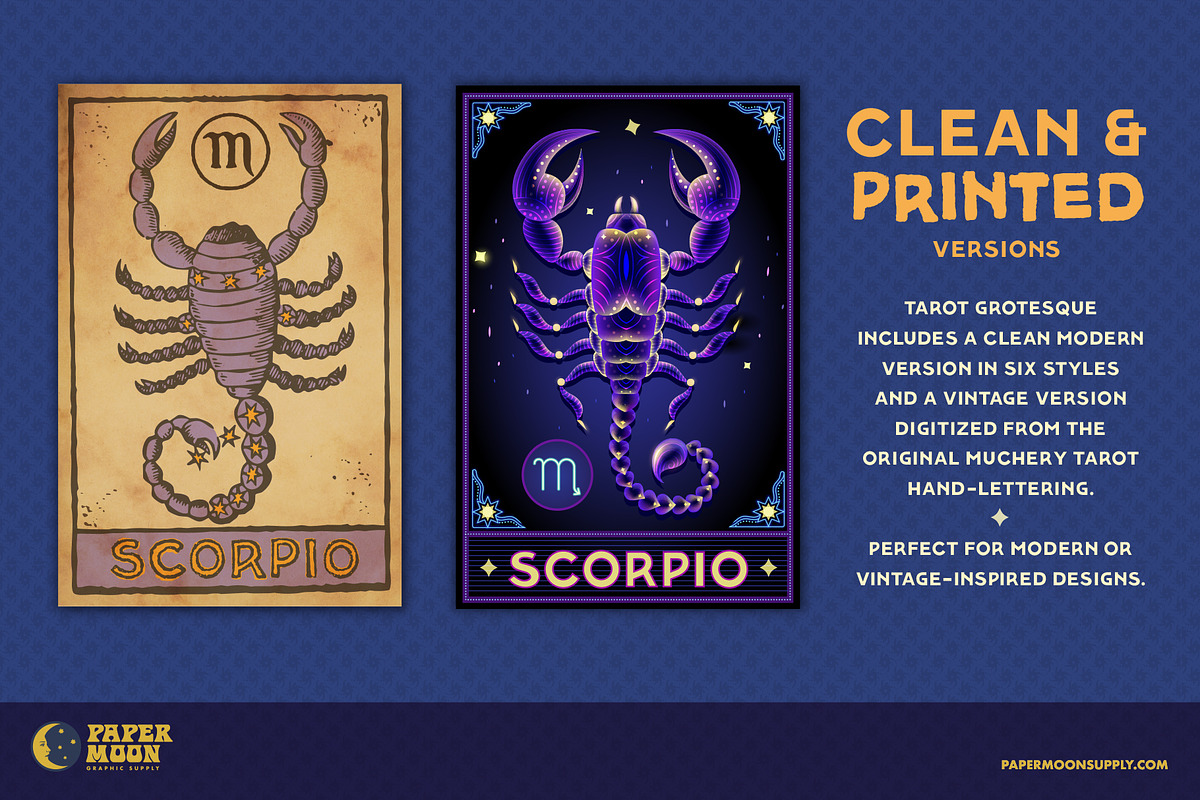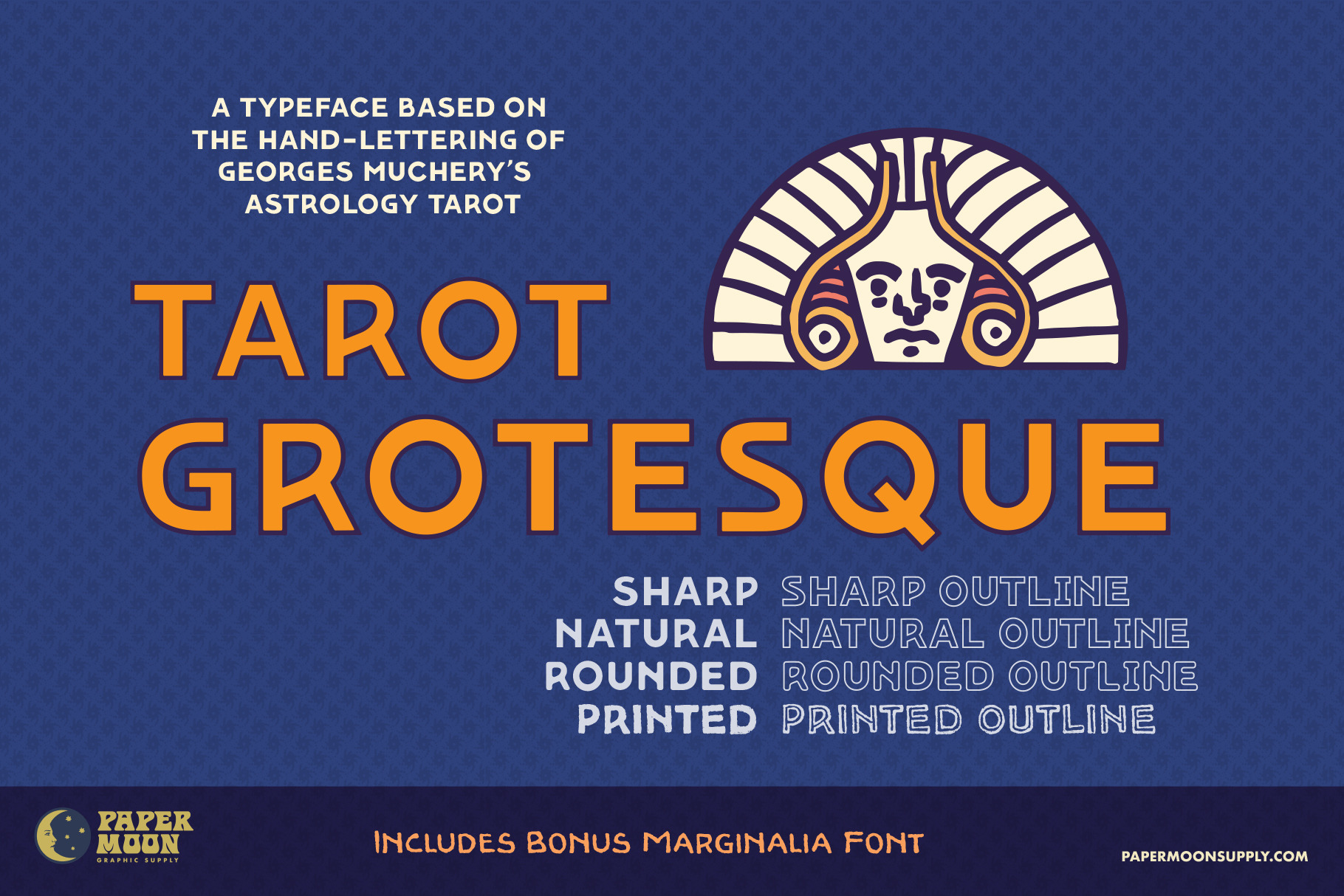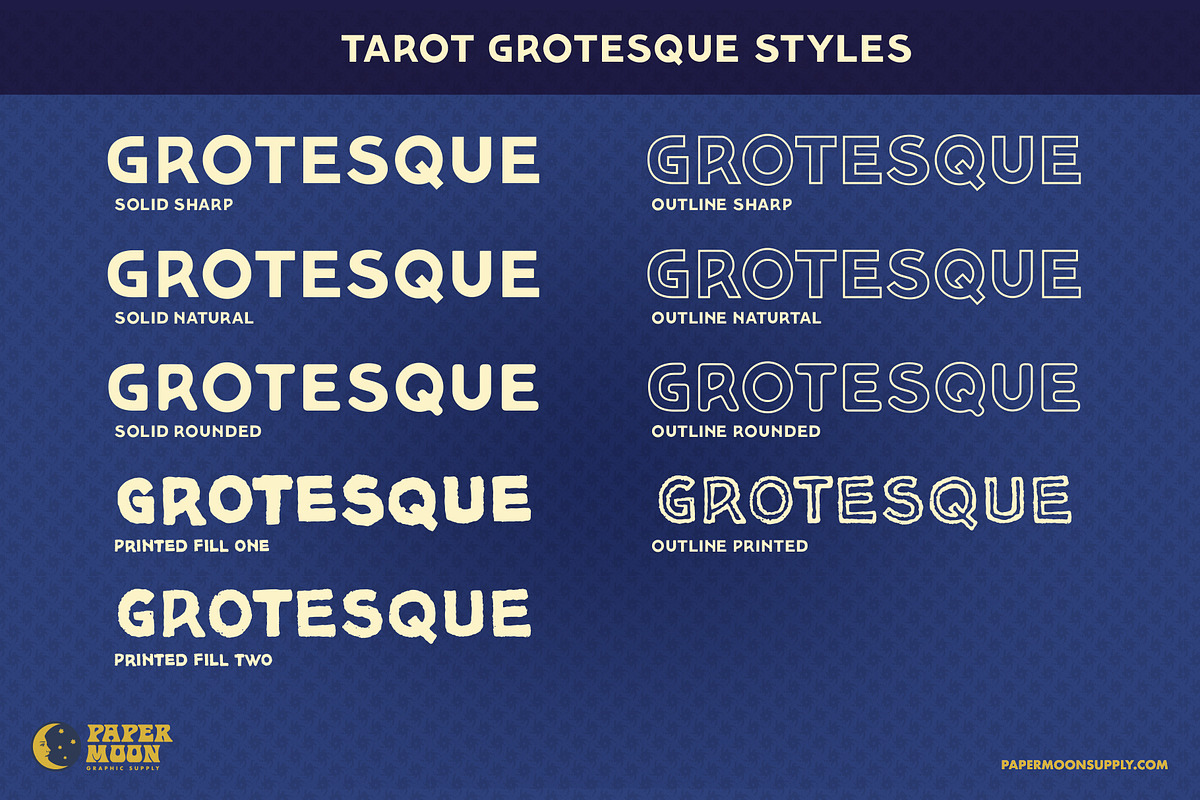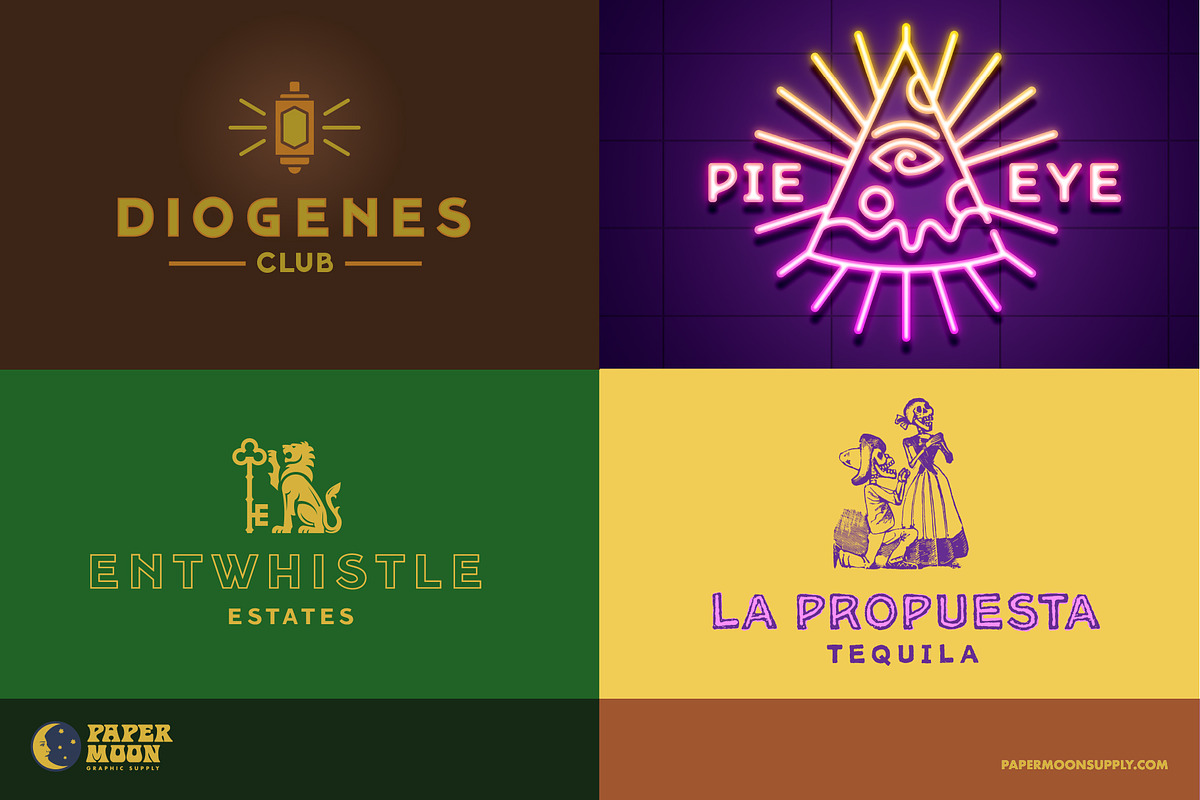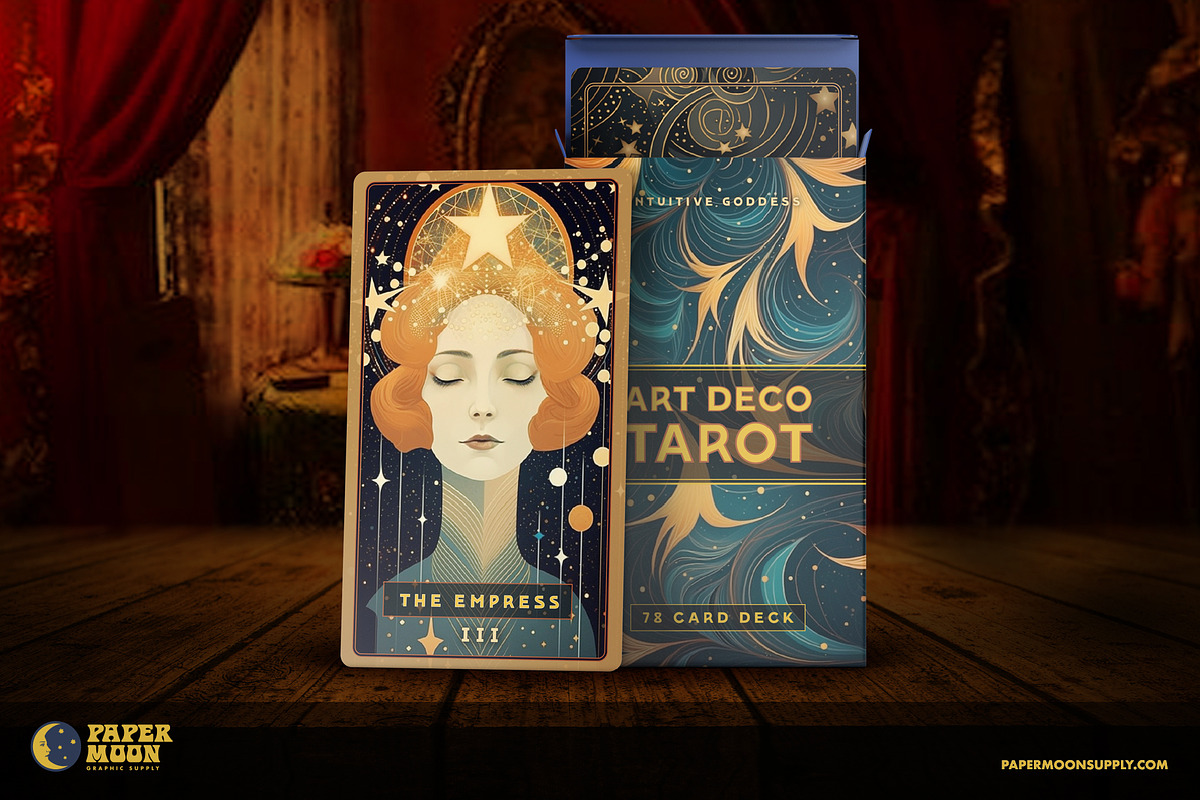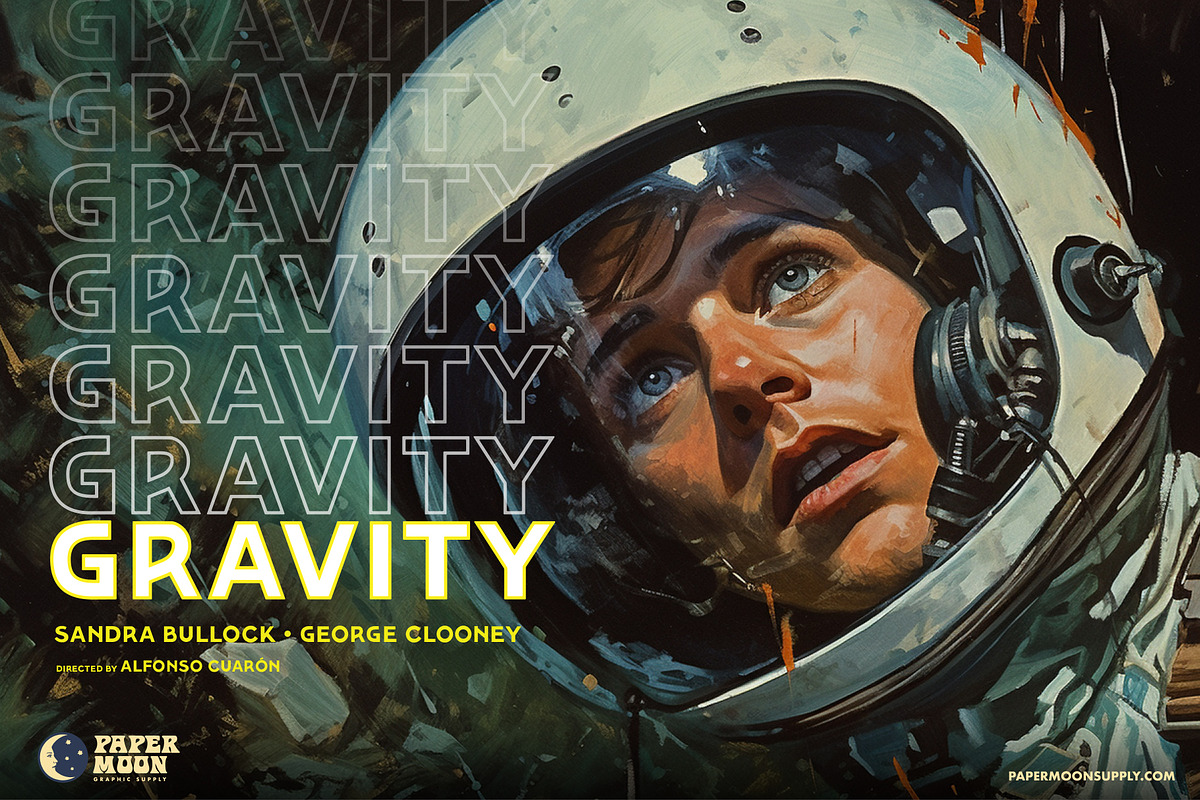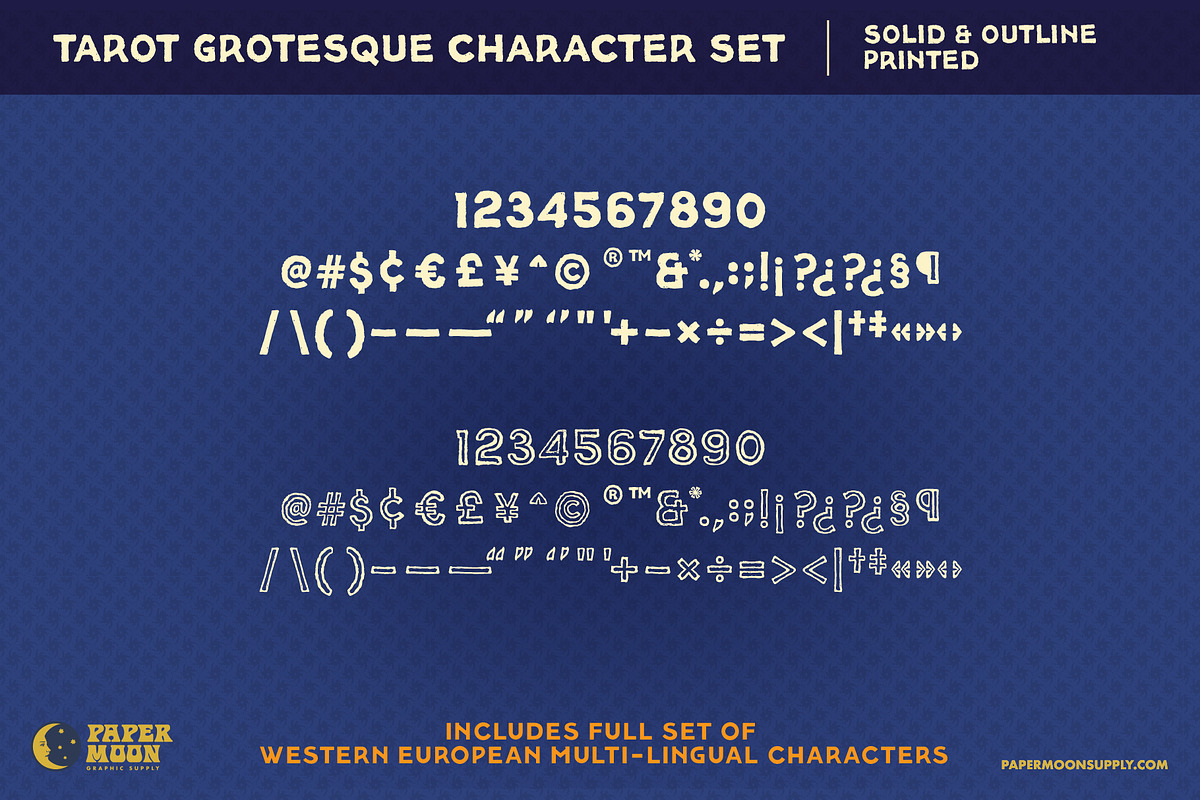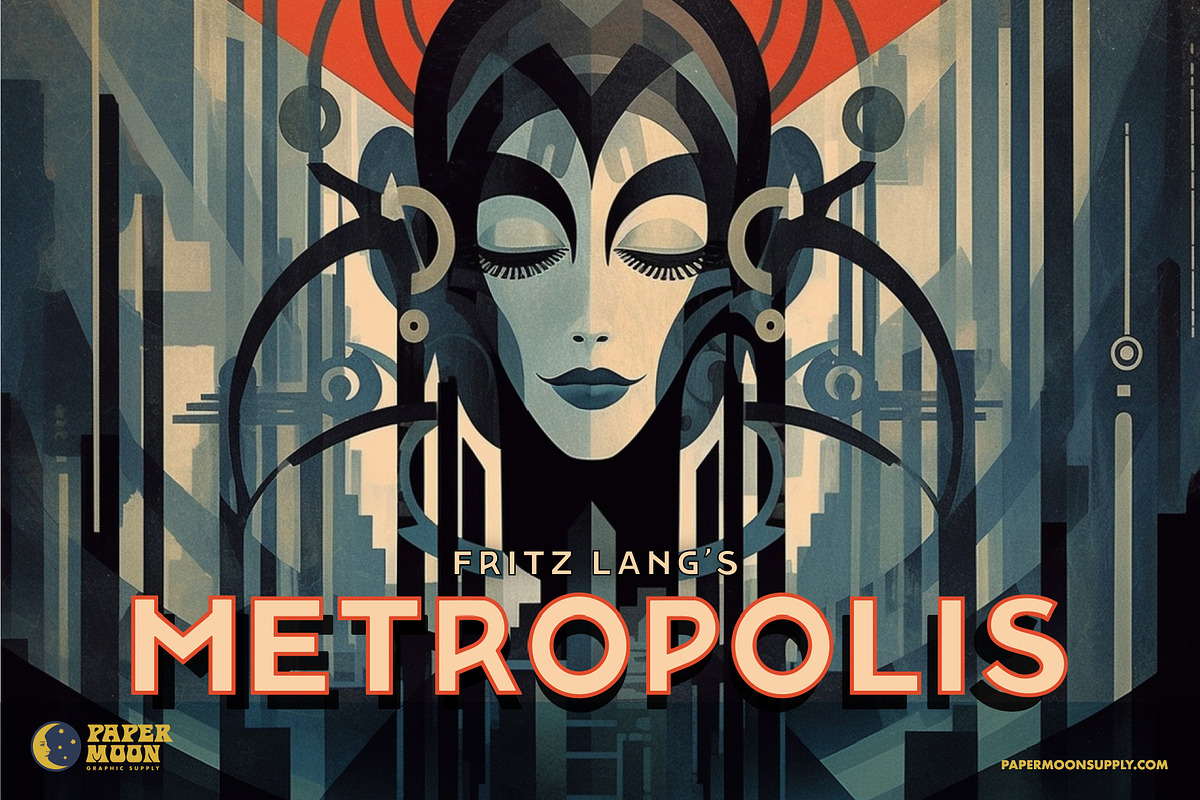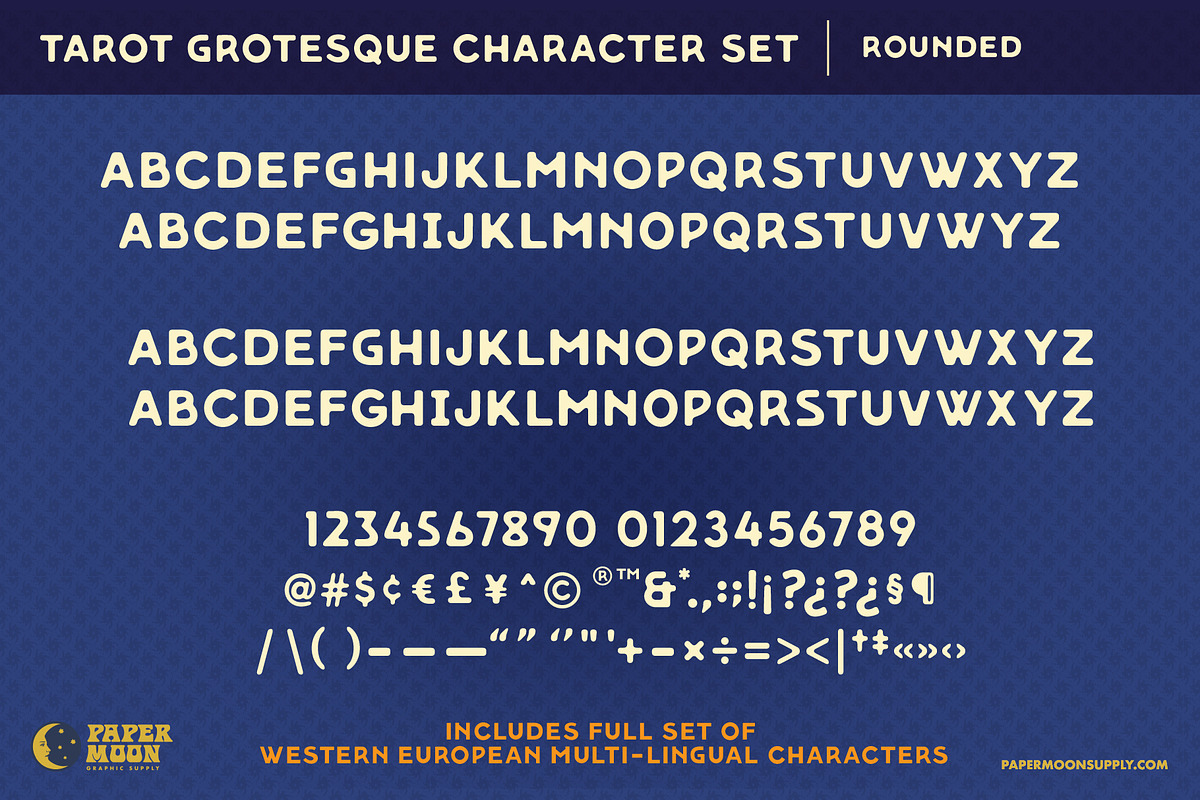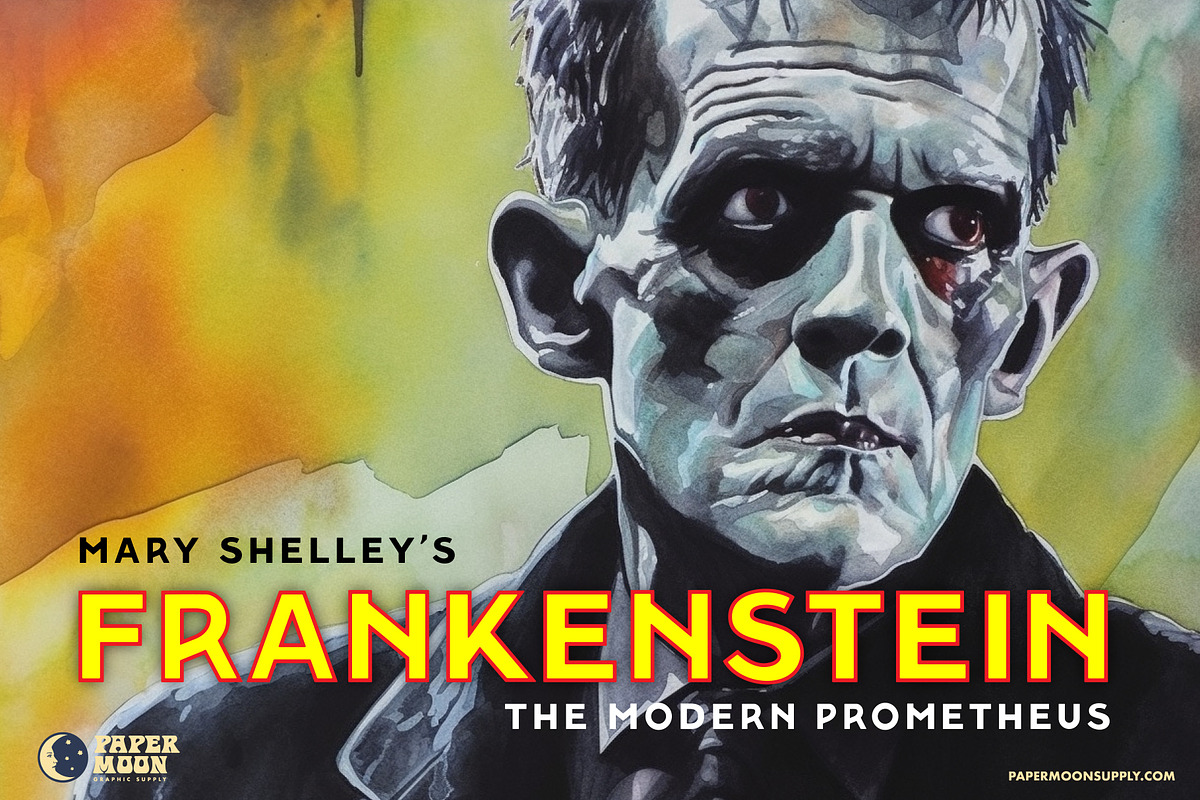
PM Tarot Grotesque Sans Serif Font
A new font based on vintage tarot card hand-lettering.
The PM Tarot typeface series began as a small personal project of digitizing the hand-lettering of the Rider-Waite Tarot. But over a six-month period in 2023, it expanded to 5 unique typefaces with many style variations.
With all the typefaces in the PM Tarot series, we've stayed true to the quirkiness and unique structure of the original lettering by including hundreds of alternate characters and ligatures. Even the clean, modern versions of the typefaces in the series maintain unique variations found in the original hand-lettering that deviate from standard type classifications.
The PM Tarot Grotesque letterforms are based on the Astrological Tarot, or Le Tarot Astrologique in French, which was first conceived in the roaring 20s in Paris, France. It was developed by Georges Muchery, an influential occultist of the time, and illustrated by the French artist Henri Armengol. This deck was the culmination of Muchery's work combining elements of astromancy and cartomancy.
- Over 250 glyphs, including alternate characters
- Highly-detailed “rough” letterpress printed-style edges to match our vintage-style clip art
- Clean version for modern designs
PM Tarot Grotesque was created by award-winning illustrator and designer Scott Banks. Until now, this font was part of Scott’s personal collection of design resources. Now you can get this typeface for your personal arsenal.